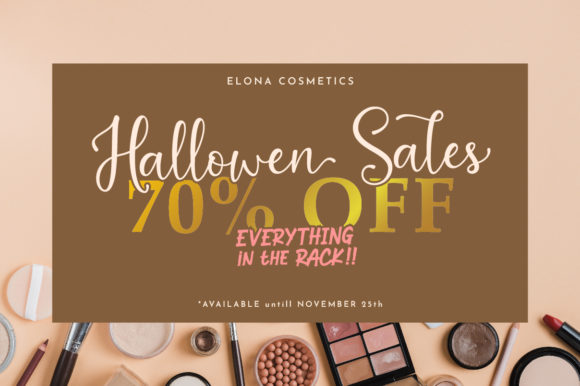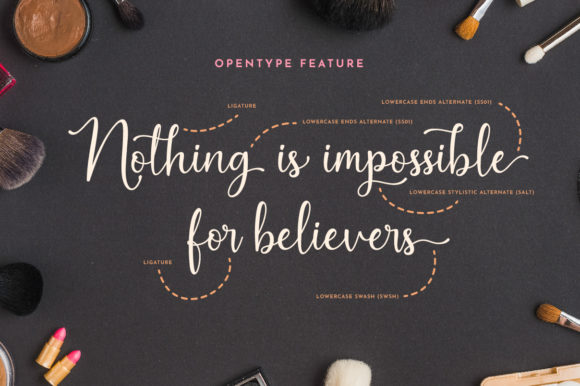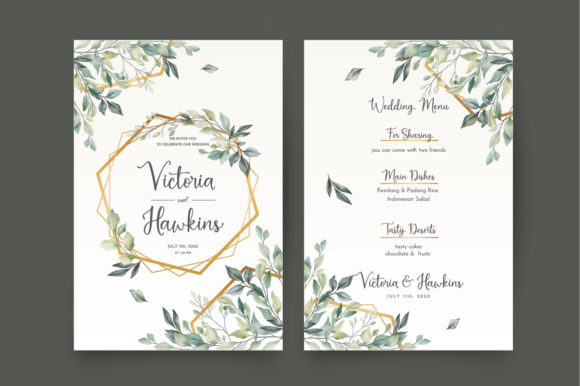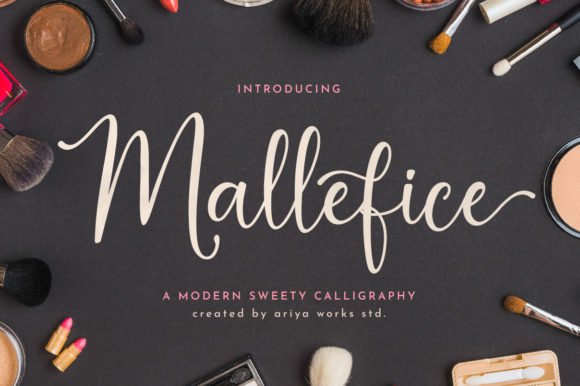
Introduction to Mallefice Font
Mallefice feels incredibly elegant and flowing.
It looks stunning on wedding invitations, thank you cards, quotes, greeting cards, logos, business cards and every other design which needs a handwritten touch It features a varying baseline, smooth lines, gorgeous glyphs and stunning alternates.